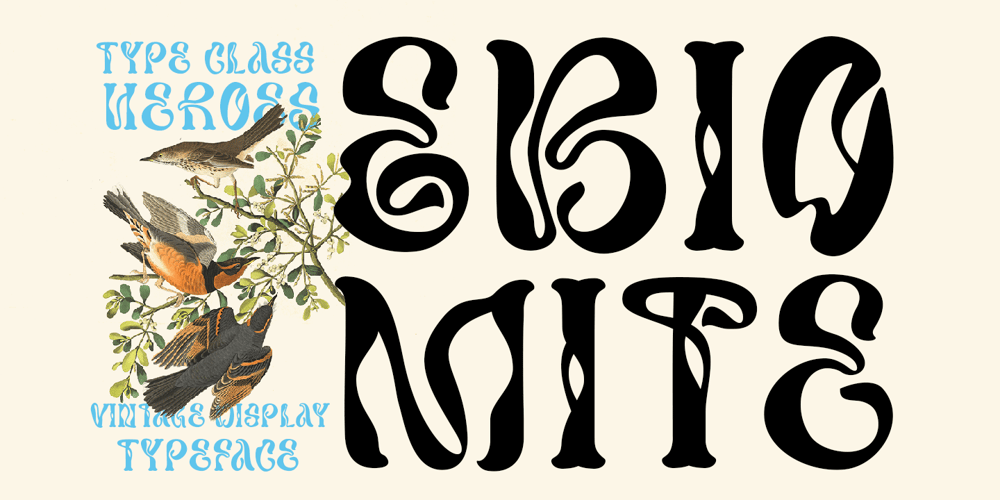
Ebiomite Font Family was designed by Suandana ipandemade and published by TypeClassHeroes. Ebiomite contains 1 styles and family package options. This offers a variety of options for unique design. Stylish letters that seem to wave and twist harmoniously together to form unique & elegant typography designs. Combine with ligatures and special alternative glyphs so you can create a lots with layouts and compositions. Use this font such as book covers, product labels, logos badges, drink bottles, tattoo shop, coffee shops, fashion products, wedding invitation, etc.